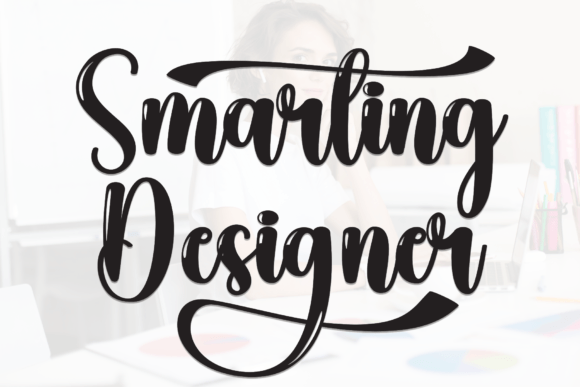
Introducing Smarting Designer Font, the perfect choice for adding a touch of elegance and charm to your designs! Created by andikastudio, this sweet and friendly handwritten font is sure to captivate and inspire.
With its natural and unique style, Smarting is versatile and can be used for a wide range of creative projects. Whether you're designing invitations, crafting personalized stationery, or adding a personal touch to your branding, this font has got you covered.
Imagine the joy and excitement your recipients will feel when they receive an invitation designed with Smarting Designer Font. Its graceful and flowing strokes will instantly convey a sense of warmth and thoughtfulness. Your invites will stand out from the crowd, leaving a lasting impression on your guests.
But Smarting isn't just limited to invitations. Its versatility allows it to shine in various contexts. Use it to create stunning logos that exude elegance and sophistication. Add a touch of handwritten charm to your social media graphics and watch your engagement soar. This font is a true game-changer for anyone looking to make a lasting impact.
What sets Smarting apart is its limitless potential. Let your imagination run wild and explore the endless possibilities this font has to offer. From wedding stationery to inspirational quotes, Smarting Designer Font will elevate your designs to new heights.
With its captivating and eye-catching style, Smarting Designer Font is the perfect choice for those seeking a font that truly stands out. Its natural and unique design, combined with its versatility, makes it a must-have for anyone looking to create stunning and memorable designs. Elevate your projects and unlock a world of possibilities with Smarting Designer Font.